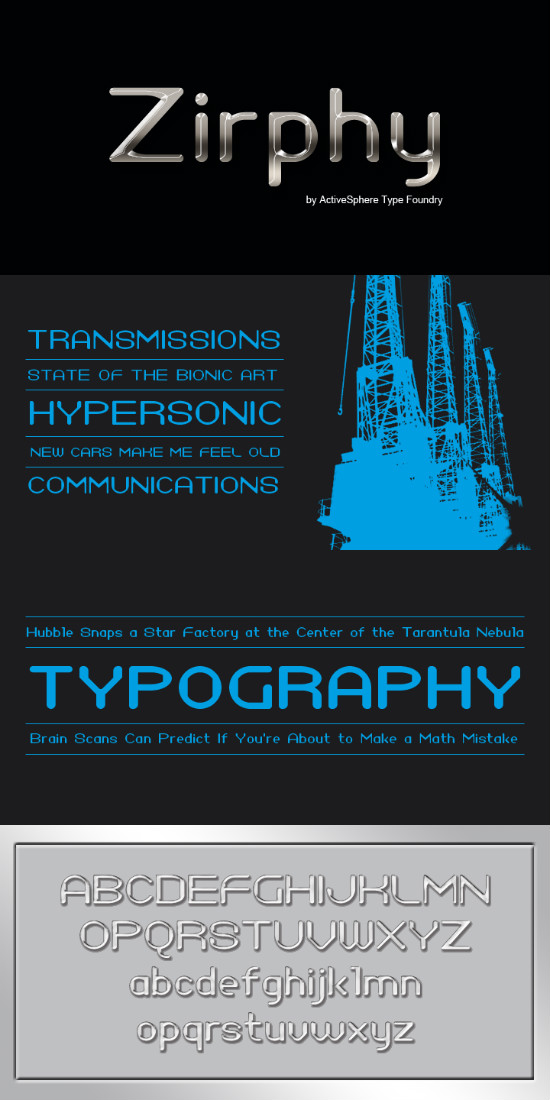
Zirphy Font
Zirphy is a rounded geometric display font and works best in display applications, such as posters, headline, magazine, product branding, corporate branding, signage, logos and titles.
Each style has a full upper and lower-case, accents, punctuation and a selection of monetary symbols.